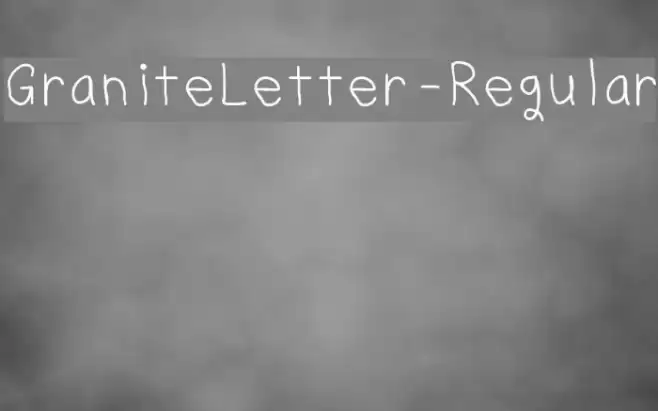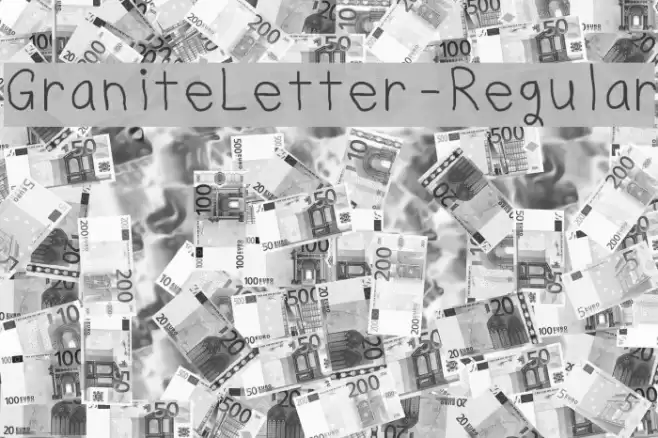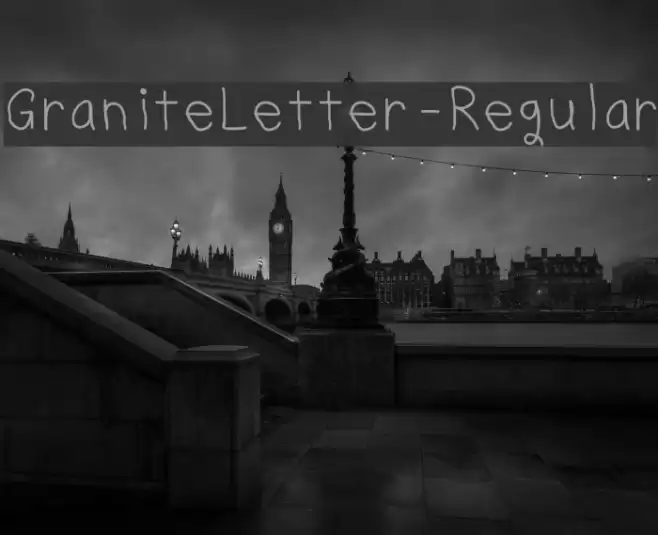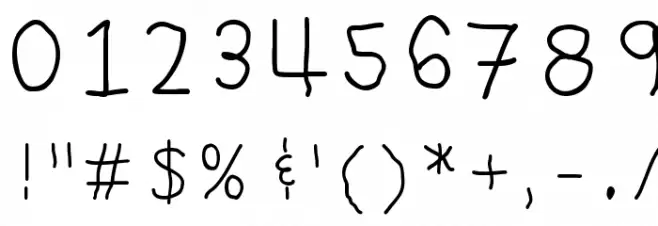
GraniteLetter-Regular Font
GraniteLetter-Regular Description
This font features a playful and casual handwritten style, characterized by its irregular and slightly wavy lines that give it a friendly and approachable appearance. The letters are unevenly sized, adding to the informal and whimsical feel. The strokes are consistent in thickness, providing a uniform look despite the quirky design. The font includes a full set of uppercase and lowercase letters, numbers, and a variety of special characters, making it versatile for different uses. Its unique style is reminiscent of personal notes or doodles, making it ideal for creative projects.
A playful, handwritten font with a casual and whimsical style from Uncategorized fonts.
- Proposed Projects: Ideal for greeting cards, children's books, casual invitations, and creative branding.
- Overall Style: Casual
- Use Case: Headlines, Informal text, Creative projects